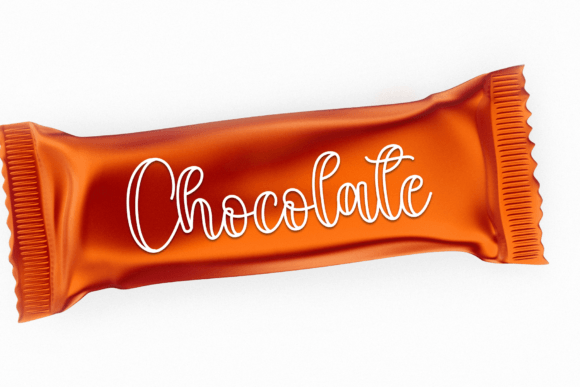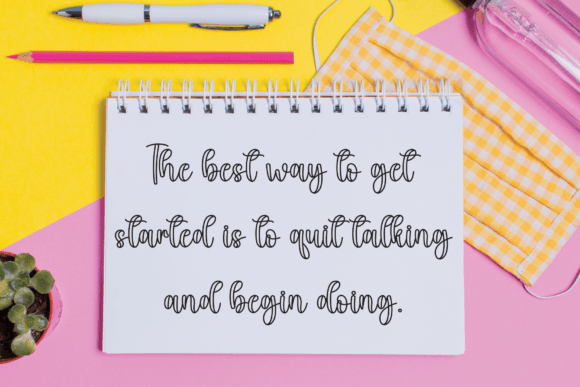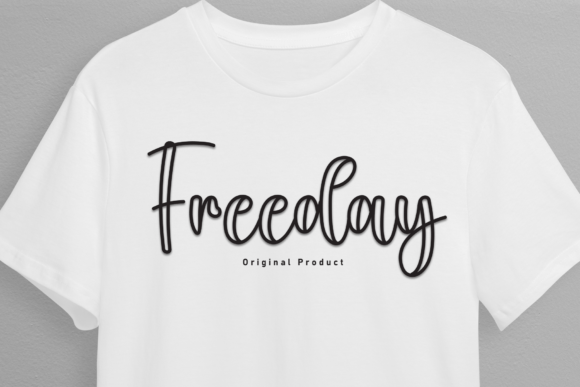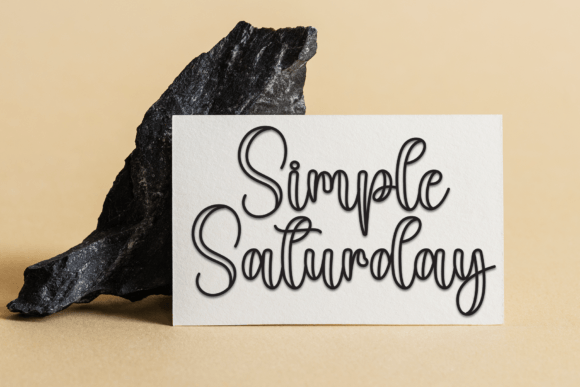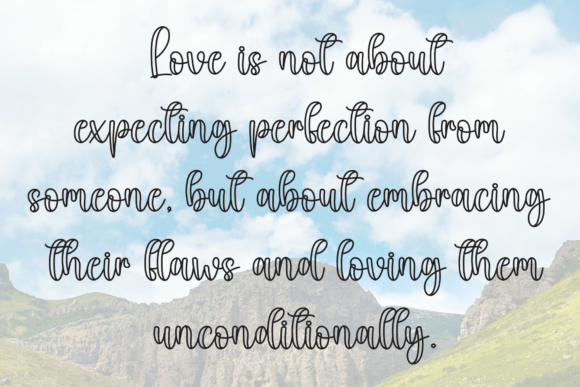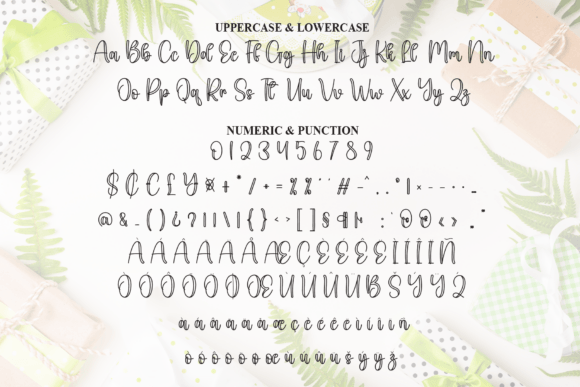
Introducing Birthday Wonderful Font: The Perfect Addition to Your Birthday Celebrations
Are you a designer, crafter, or party planner looking for a unique and playful font to make your birthday creations stand out? Look no further than the Birthday Wonderful Font! This delightful, outline handwritten font is specifically designed to add a touch of fun and whimsy to your birthday invitations, cards, and party decorations.
What Makes Birthday Wonderful Font So Special?
Birthday Wonderful Font boasts a fun, casual style that is sure to capture the excitement and joy of any birthday celebration. The letters are carefully outlined, giving them a light and cheerful look that is perfect for creating eye-catching designs. Whether you’re designing a birthday invitation, creating a custom card, or decorating a party space, this font is sure to add a special touch.
Key Features of Birthday Wonderful Font
- Playful and Fun: Birthday Wonderful Font features a playful, handwritten style that’s perfect for birthday celebrations.
- Outline Design: The letters are carefully outlined, giving them a light and cheerful look.
- Casual Style: This font boasts a casual, laid-back style that’s perfect for creating birthday invitations, cards, and party decorations.
- Versatile: Birthday Wonderful Font can be used for a variety of design projects, from digital creations to print materials.
As a designer or crafter, you’re always on the lookout for unique and versatile fonts to add to your collection. Birthday Wonderful Font is the perfect addition to your arsenal, offering a range of creative possibilities. Use it to:
- Create custom birthday invitations that set the tone for a special celebration.
- Design eye-catching birthday cards that will make loved ones feel extra special.
- Develop party decorations that are both fun and festive.
Tips for Using Birthday Wonderful Font
To get the most out of Birthday Wonderful Font, here are a few tips to keep in mind:
- Experiment with Colors: Try pairing the font with bright, bold colors to really make your designs pop.
- Mix and Match: Combine Birthday Wonderful Font with other fonts to create a unique and visually appealing design.
- Play with Size: Don’t be afraid to experiment with different font sizes to add emphasis and create visual interest.
In conclusion, Birthday Wonderful Font is a must-have for designers, crafters, and party planners looking to add a touch of fun and whimsy to their birthday creations. With its playful, outline design and casual style, this font is perfect for creating eye-catching birthday invitations, cards, and party decorations. So why wait? Download Birthday Wonderful Font today and start making your birthday celebrations truly special!